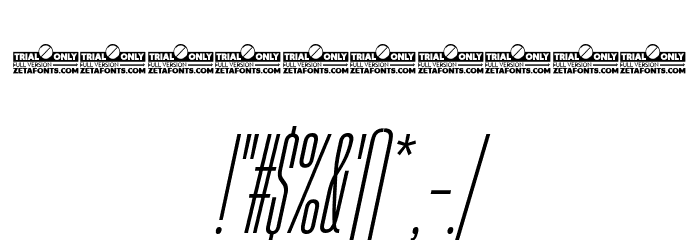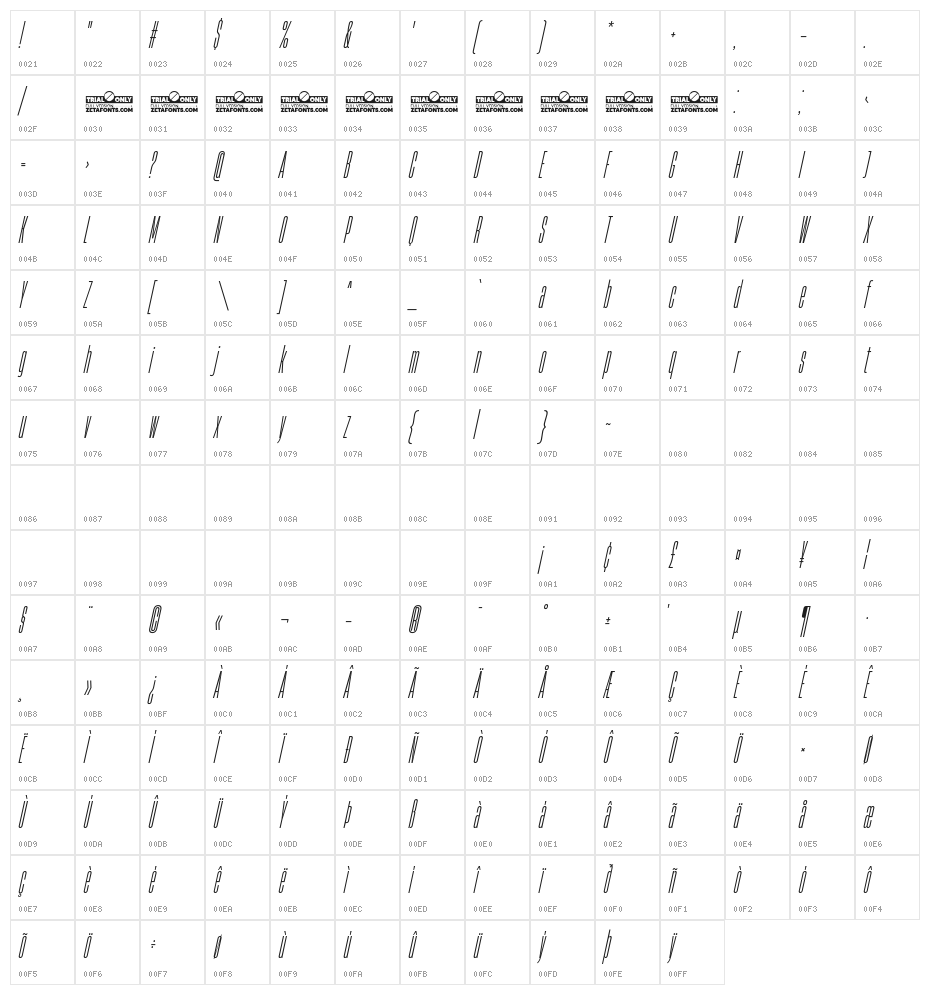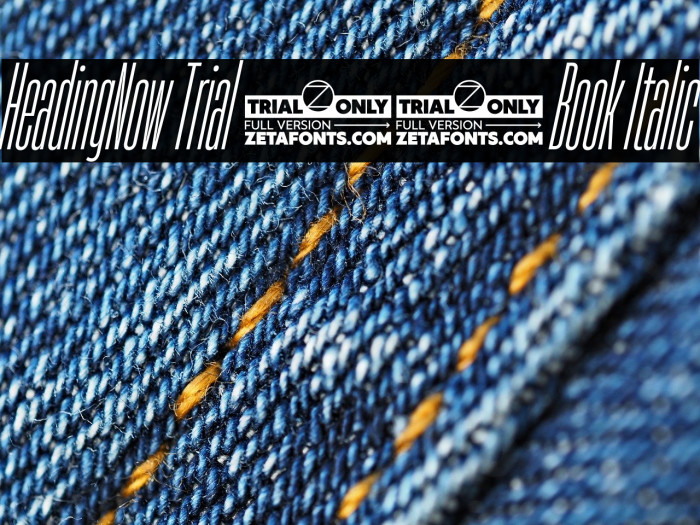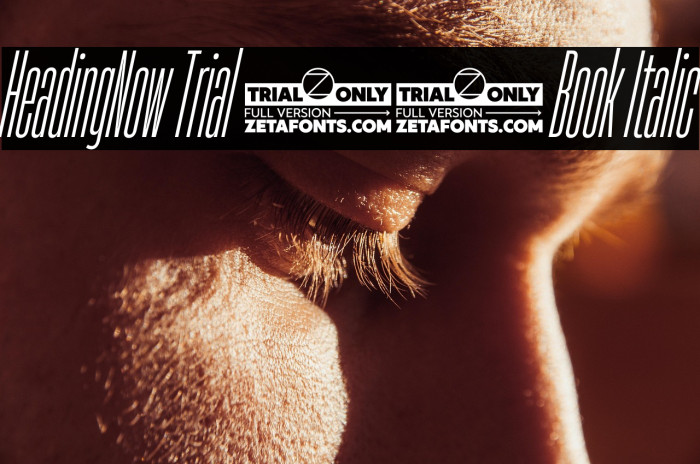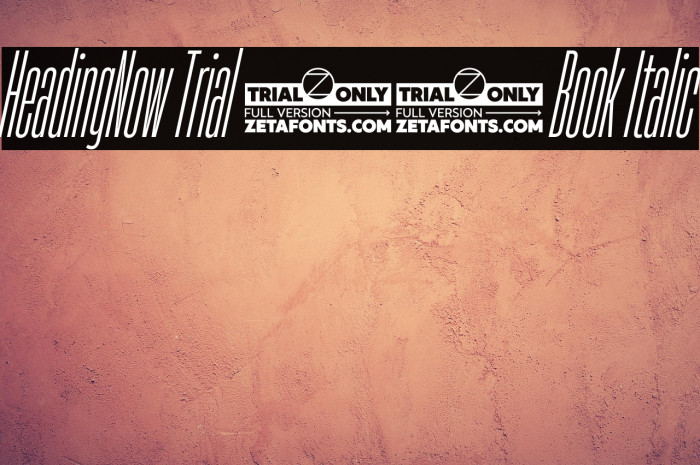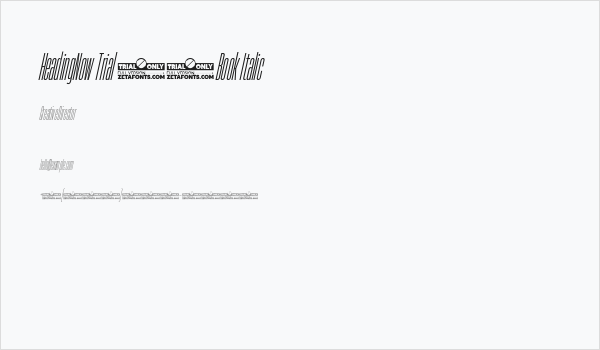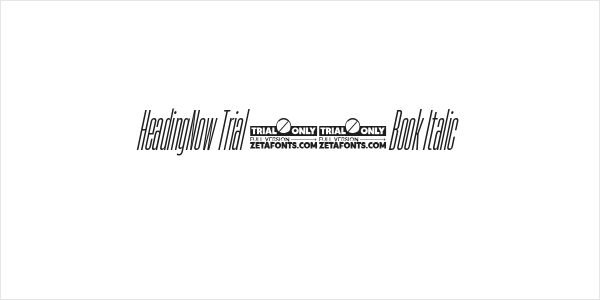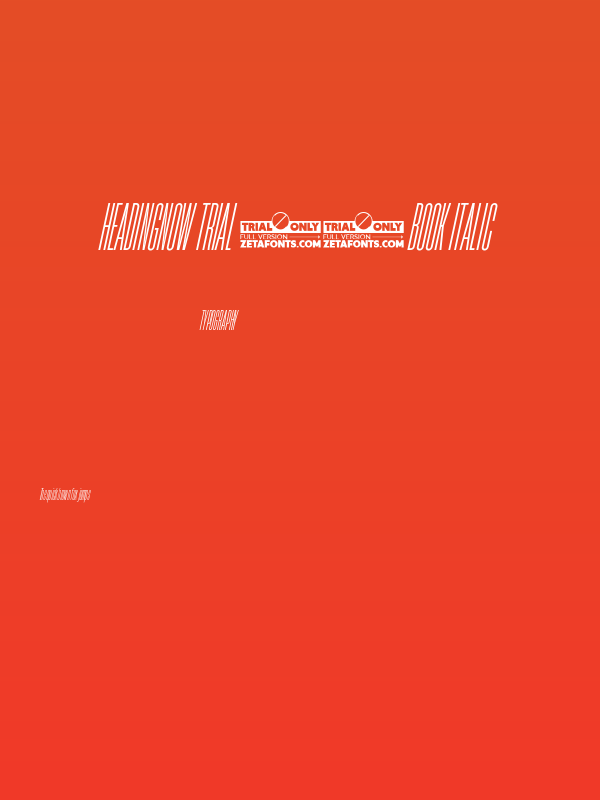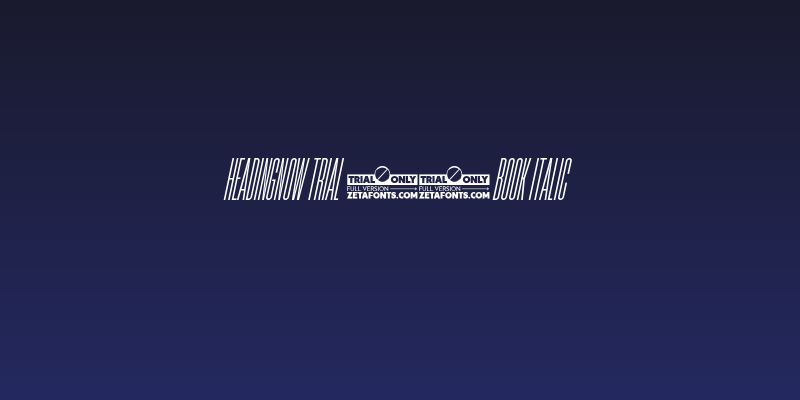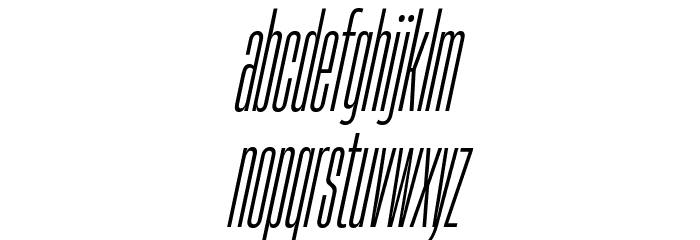
HeadingNow Trial 03 Book Italic Font
HeadingNow Trial 03 Book Italic Description
This font exhibits a sleek and modern design with a distinct italic slant, giving it a dynamic and forward-moving appearance. The characters are elongated and narrow, contributing to a condensed look that maintains readability. The strokes are consistent in weight, providing a uniform appearance across all characters. The uppercase and lowercase letters are well-proportioned, and the numerals align seamlessly with the overall style. Special characters are included, maintaining the same elegant and streamlined design. This font is versatile, suitable for both digital and print media, and can be used to add a contemporary touch to any project.
| Use Case | Headlines, Logos, Digital interfaces |
| Proposed Projects | Ideal for branding, advertising, editorial design, and digital interfaces. |